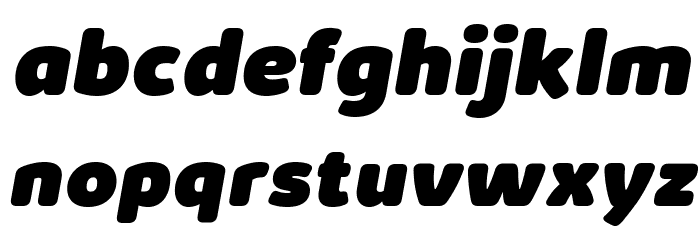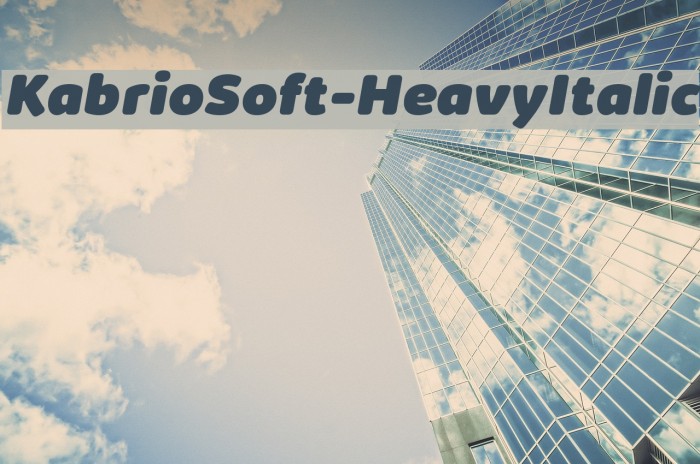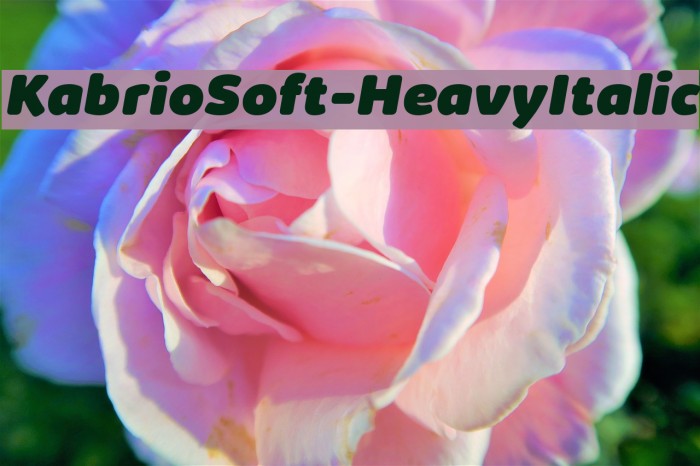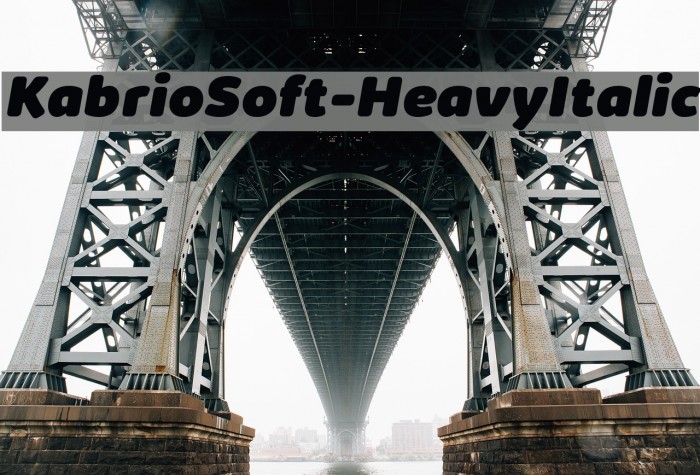
KabrioSoft-HeavyItalic Font
This font features a bold and rounded style with a playful and friendly appearance. The characters are heavy and italicized, giving them a dynamic and energetic feel. The rounded edges and smooth curves create a sense of warmth and approachability. The uppercase and lowercase letters maintain a consistent weight, ensuring readability. The numbers and special characters are designed to match the overall style, with a uniform thickness that complements the letters. This font is well-suited for projects that require a bold and inviting look.
A bold, rounded, and italicized font with a playful and friendly style.
- Proposed Projects: Ideal for children's books, playful branding, posters, and advertising campaigns.
- Overall Style: Playful and Friendly